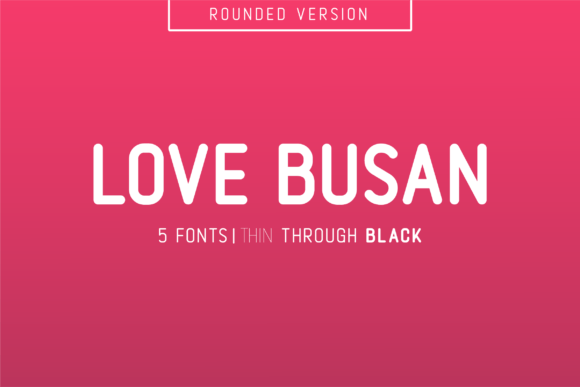
Love Busan Font: The Ultimate Guide to this Fun and Quirky Sans-Serif Typeface
In the world of typography, fonts play a crucial role in conveying messages, expressing emotions, and creating brand identities. With thousands of fonts available, it can be overwhelming to choose the right one for your project. However, if you’re looking for a fun and quirky sans-serif font that’s versatile and eye-catching, look no further than Love Busan Font. In this article, we’ll dive into the world of Love Busan Font, exploring its features, benefits, and uses.
What is Love Busan Font?
Love Busan Font is a fun and quirky sans-serif font that’s perfect for adding a touch of personality to your designs. This all-caps typeface is designed to be versatile and works beautifully in just about any context. With smooth and clean lines, and just a touch of contrast, Love Busan Font is ideal for logos, branding, web headings, and more.
Key Features of Love Busan Font
- Fun and Quirky Design: Love Busan Font has a unique and playful design that’s sure to grab attention.
- All-Caps Typeface: This font is designed specifically for all-caps text, making it perfect for headlines, titles, and logos.
- Smooth and Clean Lines: The font features smooth and clean lines that give it a modern and sleek look.
- Touch of Contrast: Love Busan Font has just the right amount of contrast to make it stand out without being too overpowering.
- Versatile: This font works beautifully in a variety of contexts, from logos and branding to web headings and more.
Uses and Applications of Love Busan Font
Love Busan Font is an incredibly versatile typeface that can be used in a wide range of applications. Here are some of the most popular uses for this font:
- Logos and Branding: The font’s unique design and smooth lines make it perfect for creating memorable logos and brand identities.
- Web Headings: Love Busan Font works beautifully for web headings, adding a touch of personality and whimsy to your website.
- Advertising and Marketing: The font’s eye-catching design makes it perfect for use in advertising and marketing materials.
- Packaging and Product Design: Love Busan Font can add a touch of fun and playfulness to packaging and product design.
Benefits of Using Love Busan Font
So why choose Love Busan Font for your next project? Here are some of the benefits of using this unique typeface:
- Stand Out from the Crowd: Love Busan Font is a one-of-a-kind typeface that’s sure to grab attention and set your project apart.
- Add Personality to Your Design: The font’s playful design allows you to add a touch of personality and whimsy to your project.
- Versatile and Flexible: Love Busan Font works beautifully in a variety of contexts, making it a great choice for a wide range of projects.
- Easily Readable: Despite its unique design, Love Busan Font is easy to read, even at smaller sizes.
Tips for Using Love Busan Font
To get the most out of Love Busan Font, here are some tips to keep in mind:
- Use it Sparingly: Because of its unique design, Love Busan Font can be overwhelming if used too much. Use it sparingly to create emphasis and add personality to your design.
- Pair it with Other Fonts: Love Busan Font works beautifully when paired with other fonts. Experiment with different combinations to find the perfect pairing.
- Experiment with Colors: The font’s design looks great in a variety of colors. Experiment with different colors to find the one that works best for your project.
In conclusion, Love Busan Font is a fun and quirky sans-serif typeface that’s perfect for adding a touch of personality to your designs. With its smooth and clean lines, touch of contrast, and versatile design, this font works beautifully in a wide range of applications. Whether you’re creating a logo, branding materials, or web headings, Love Busan Font is a great choice. So why not give it a try and see how it can elevate your designs?